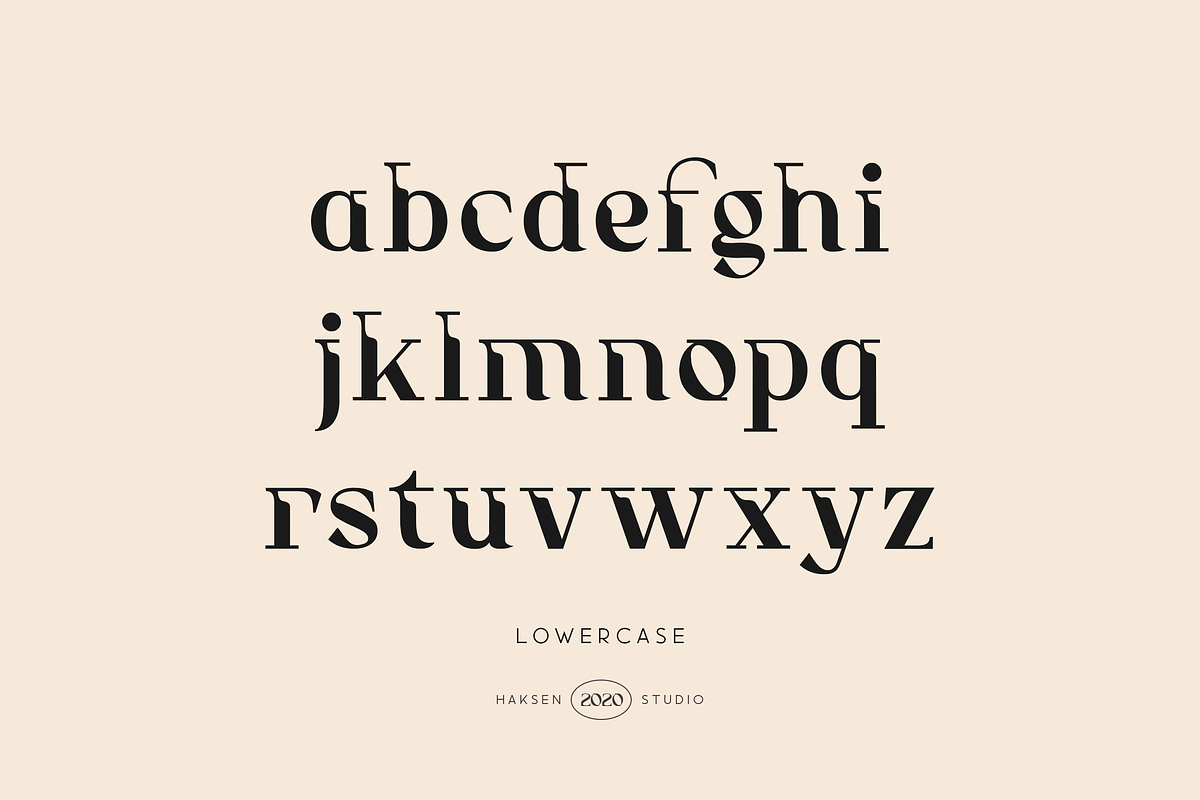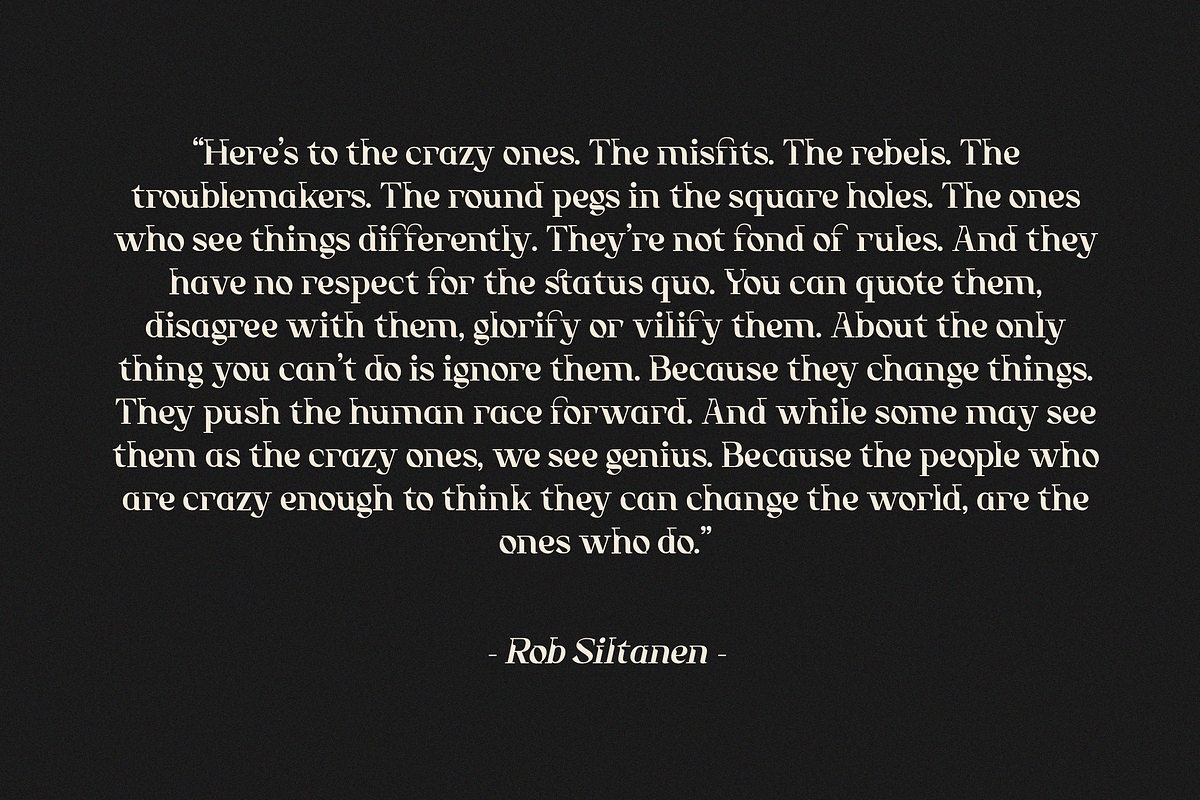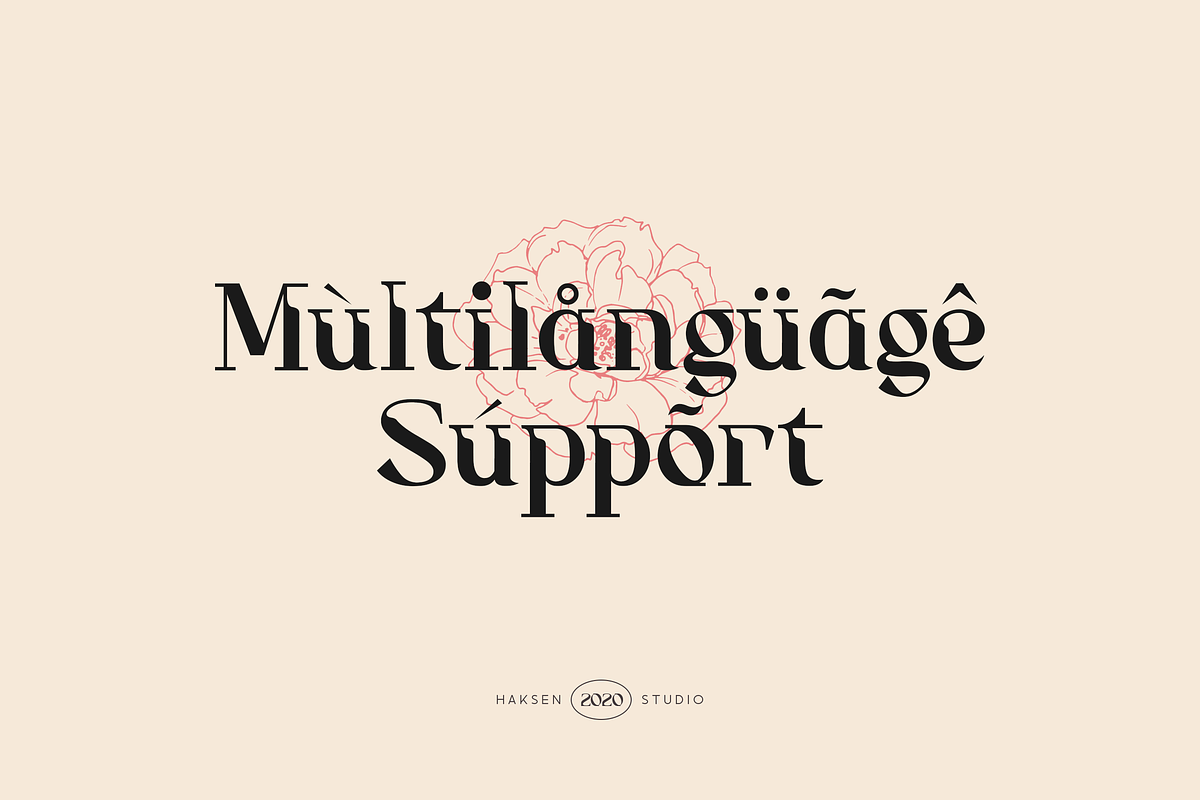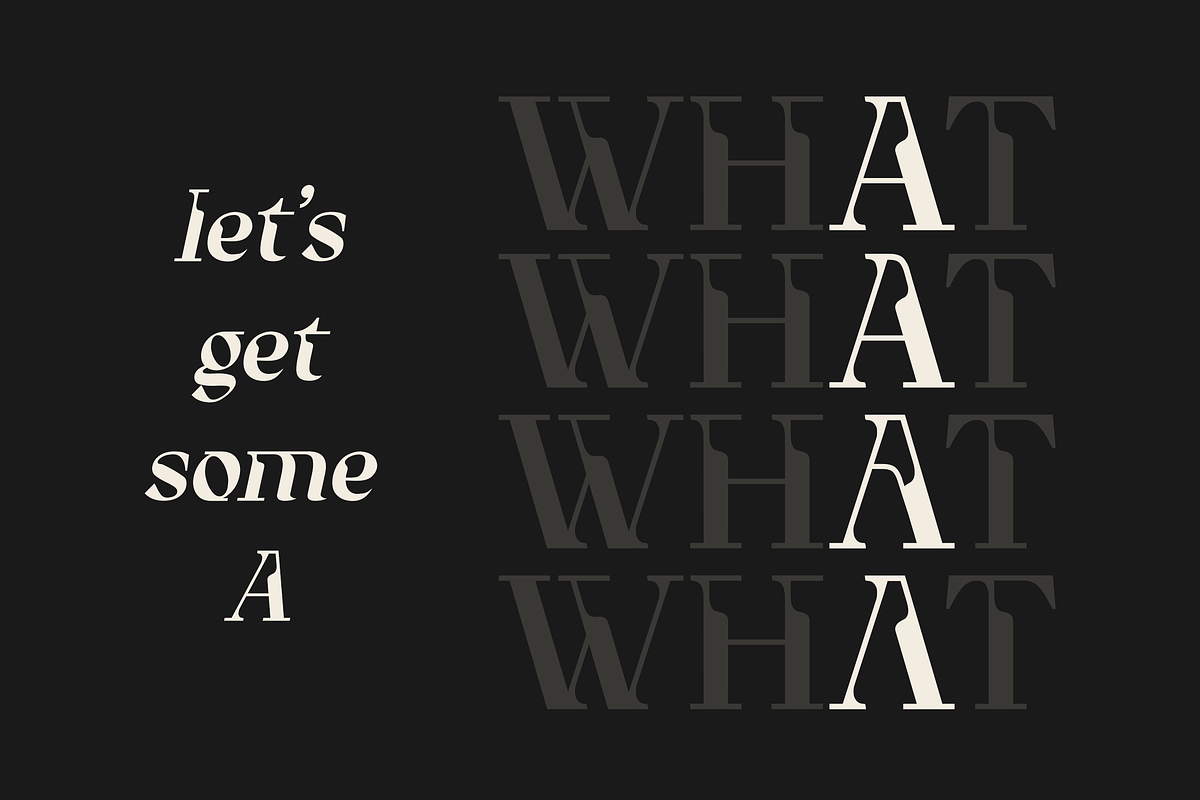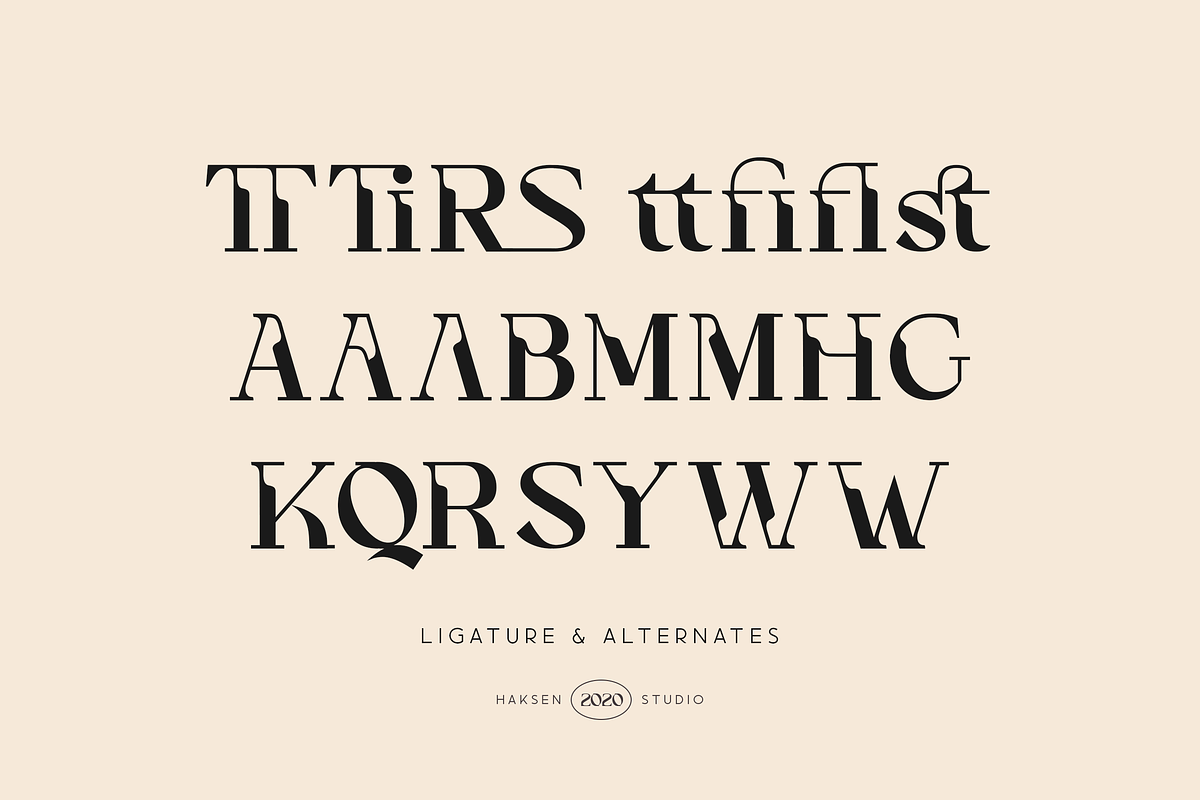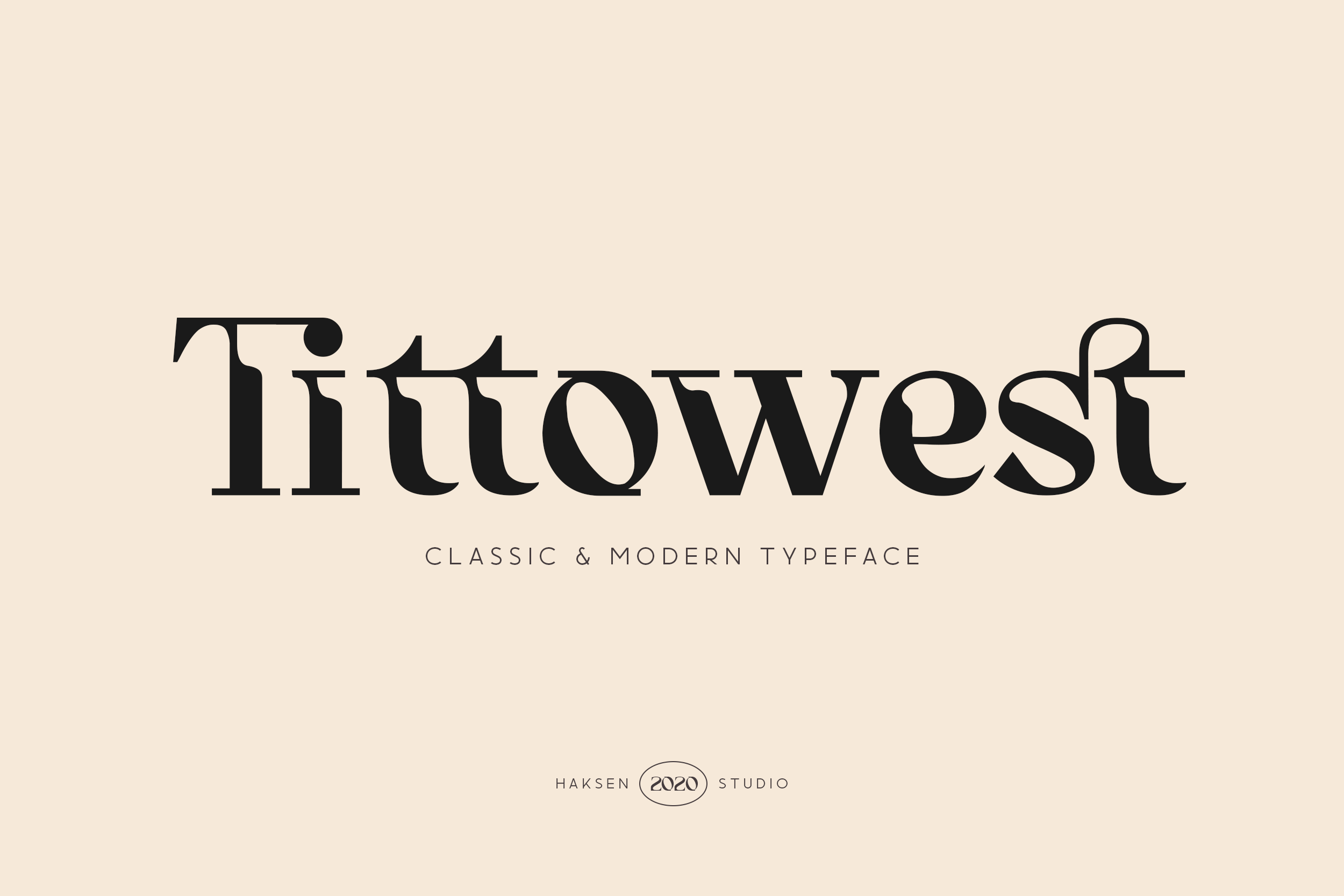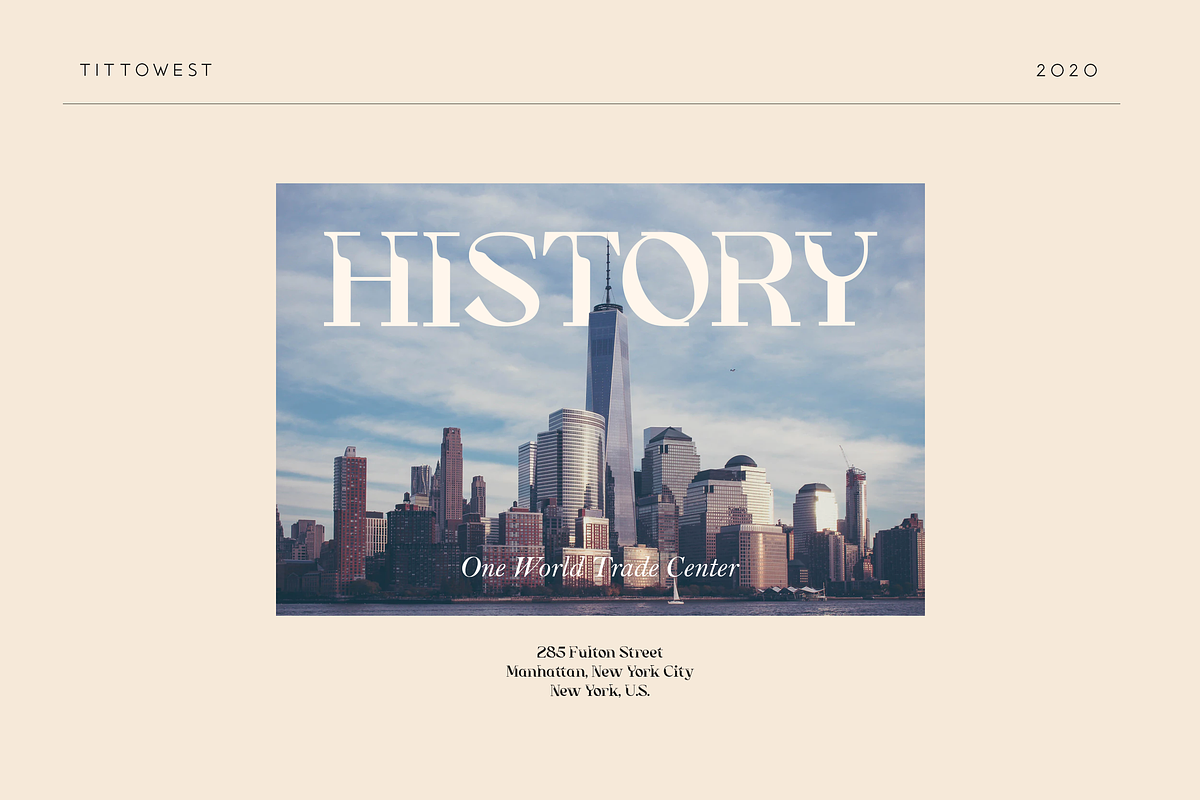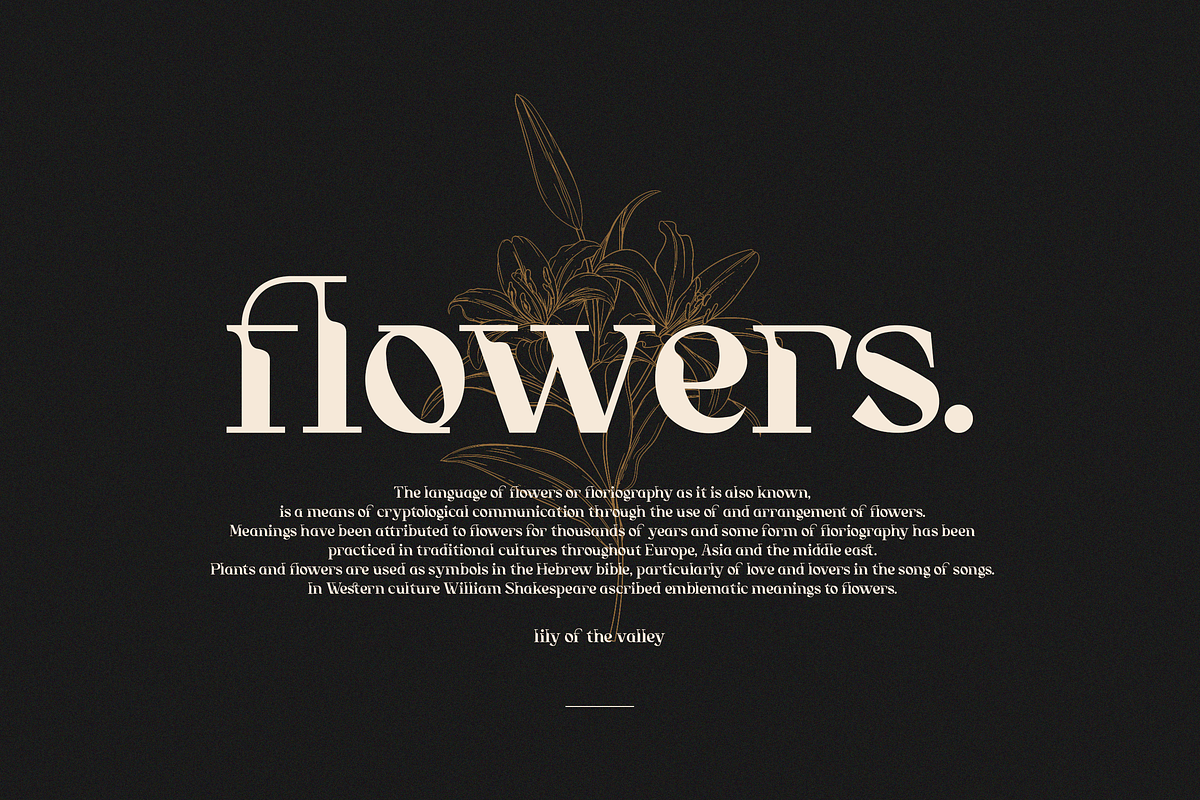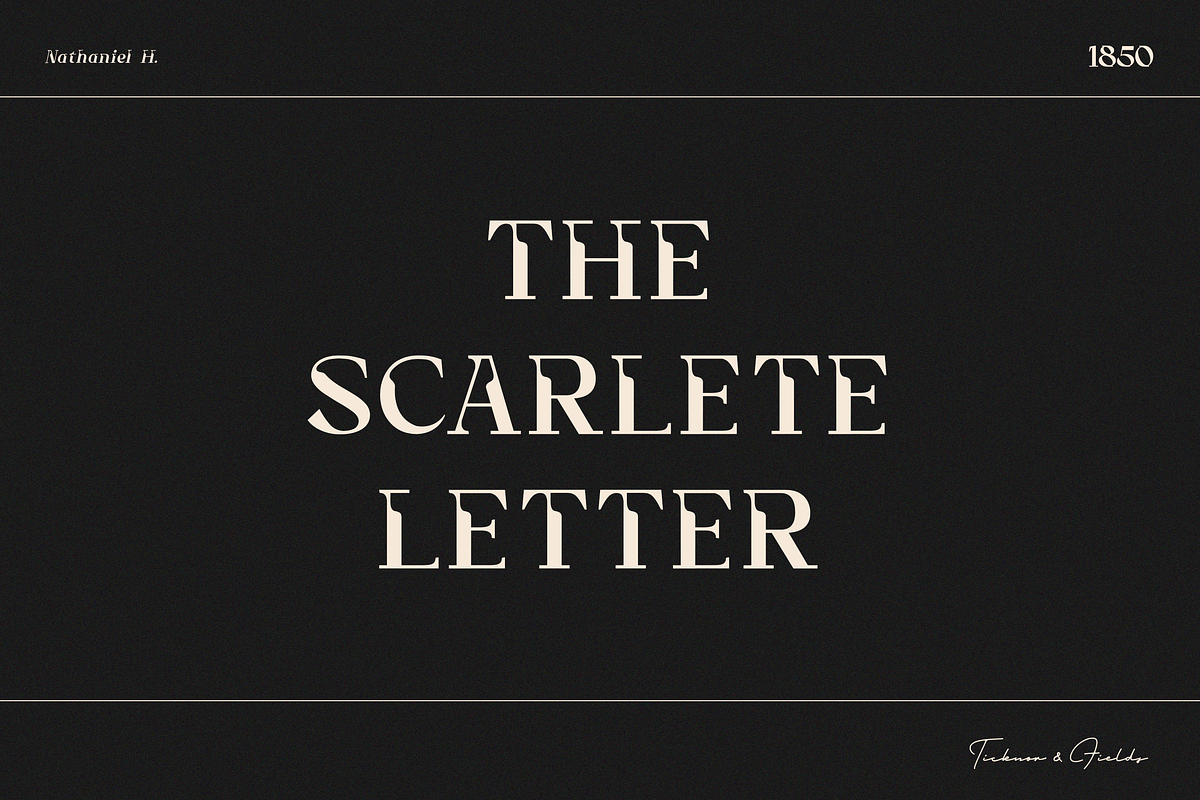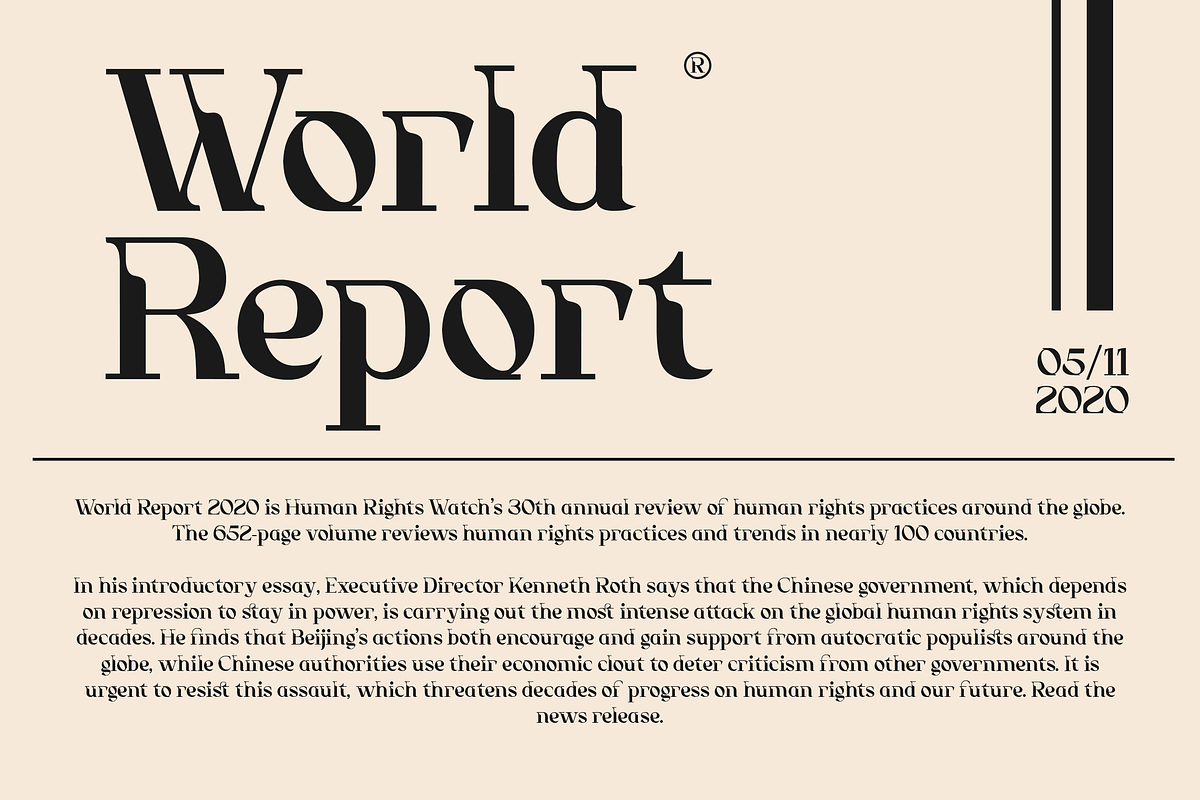
Tittowest Modern - Vintage Typeface
Tittowest is a modern/vintage serif display style with Uppercase and Lowercase feel nice balanced. Provide alternates font in uppercase and ligatures in lowercase variant style make the design letter looks incredible. Honestly it works perfectly for headlines, logos, posters, packaging, T-shirts and much more.
- Regular and Italic version -Character set A-Z in uppercase and lowercase
- Alternates in Uppercase
- Ligatures in Lowercase
- Accented Characters
- Multiple Languages Supported